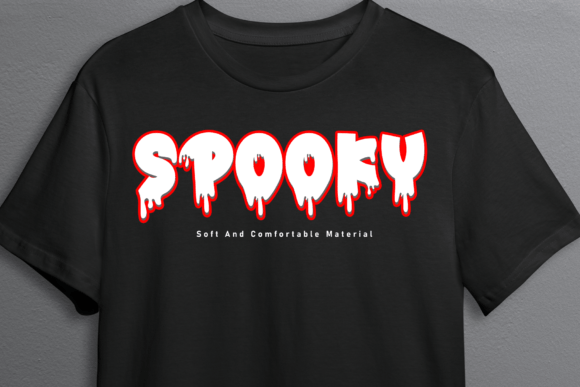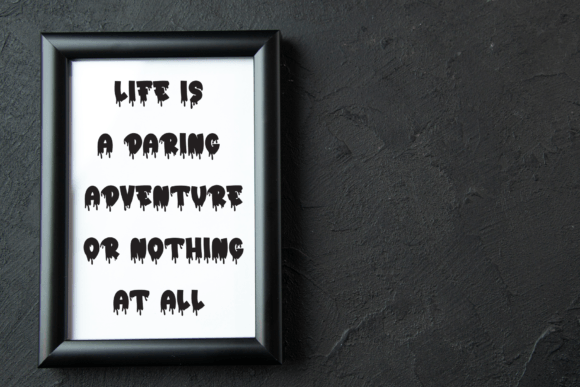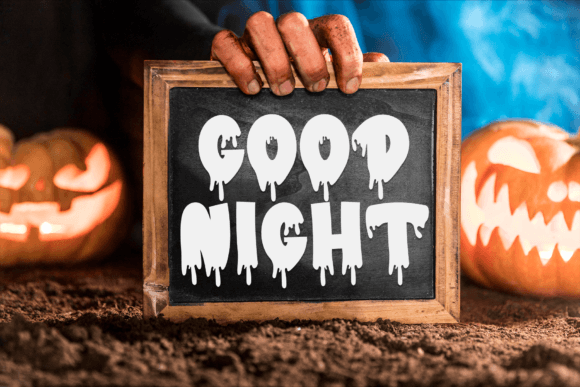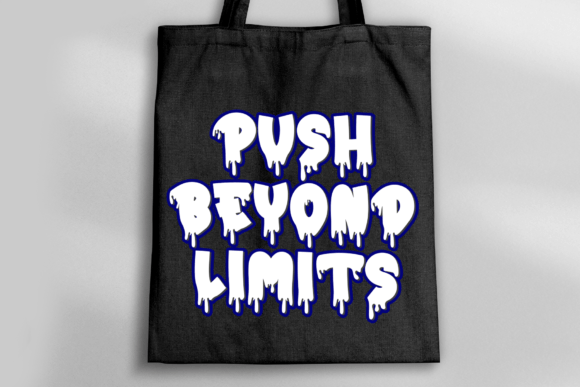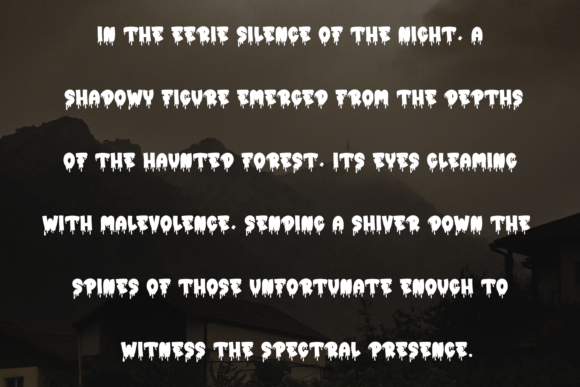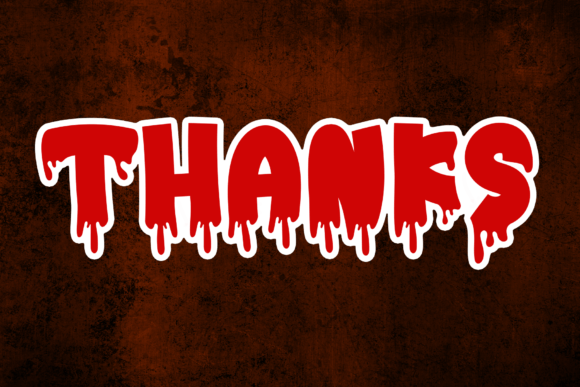
Introduction to Hello Scary Font
Do you remember that moment when you’re working on a creative project and everything just falls into place? The colors, the textures, the typography – it’s like magic. For designers, those moments are what make all the hard work worth it. And sometimes, all it takes is the right font to transport your design into a whole new world.
That’s where Hello Scary Font comes in – a modern, whimsical display font that’s sure to add a touch of magic to your designs. With its transparent background and high-quality design, this font is a valuable resource for any creative project. Whether you’re working on a spooky-themed website or a whimsical illustration, Hello Scary Font is the perfect design resource to help you bring your vision to life.
Key Features of Hello Scary Font
- Unique and Spooky Design: The Hello Scary Font is designed to add a touch of eeriness to any creative project, making it perfect for Halloween-themed designs, horror movies, and other spooky events.
- High-Quality Design Resource: This font is a high-quality design resource that comes with a transparent background, allowing for easy integration into any design project.
- Large Character Set: The Hello Scary Font comes with a large character set, including uppercase and lowercase letters, numbers, and special characters, making it a versatile font for various design needs.
- High Resolution: The font is designed at a high resolution of 300 DPI, ensuring that it looks crisp and clear when used in print or digital designs.
- Perfect for Creative Projects: The Hello Scary Font is an excellent choice for designers who want to add a touch of creativity and uniqueness to their projects, from posters and flyers to social media graphics and websites.
Honest Review: Hello Scary Font
As a designer, I’m always on the lookout for unique and high-quality design resources to elevate my creative projects. Hello Scary Font is one such resource that caught my attention with its bold and quirky style. ✨
I downloaded the font for free and was impressed with its crisp and clear lines, making it perfect for a variety of design projects. The font’s transparent background allows for seamless integration with different backgrounds and color schemes.
Here are some of the key features I like about Hello Scary Font:
- High-quality design that stands out from the crowd
- Perfect for creative projects that require a bold and quirky touch
- Easy to use and integrate with different design elements
- Limited character set and special characters
- May not be suitable for formal or professional projects
Overall, I’m impressed with Hello Scary Font’s unique design and versatility. While it may have some limitations, it’s a valuable resource for designers looking to add a touch of personality to their creative projects. ✨
Hello Scary Font is a versatile design resource that can be used in various creative projects, such as graphic design, digital art, and even print materials. Some common use cases include:
- Creating spooky-themed designs for Halloween or horror movies
- Designing a logo or branding materials for a horror-themed business
- Adding a touch of eeriness to a design project
Tips for Getting the Most Out of Hello Scary Font
To get the most out of Hello Scary Font, be sure to:
- Combine the font with other design elements to create a unique look
- Use the font as a design resource to create a high quality design
To achieve a seamless transparent background, make sure your design software supports the font’s transparent PNG format. You can also check the font’s documentation for specific guidelines on using the transparent background feature.
Q: Is Hello Scary Font available in high quality?
Yes, Hello Scary Font is available in high quality, ensuring that your design looks professional and polished. The font’s high-quality design makes it an excellent resource for designers working on a wide range of creative projects.